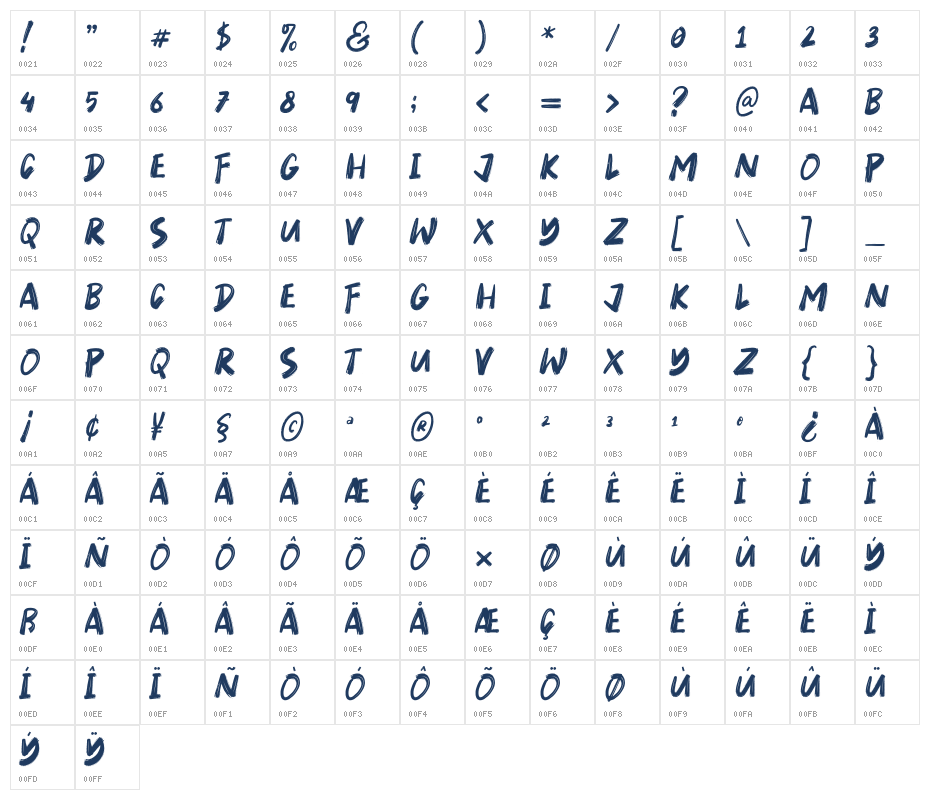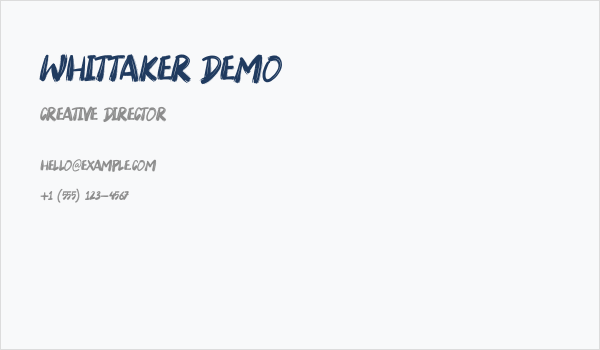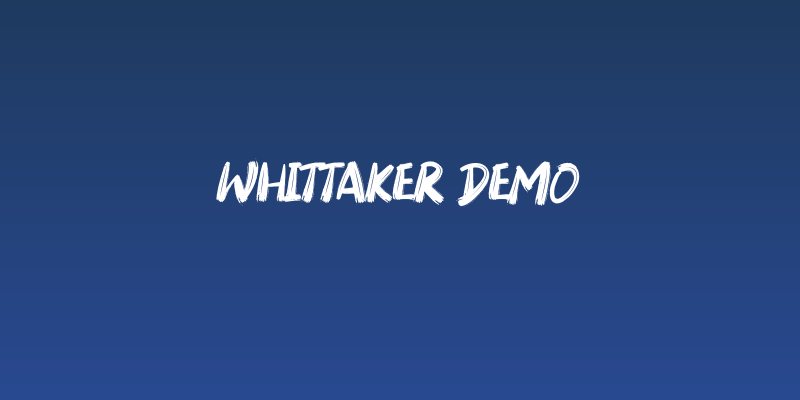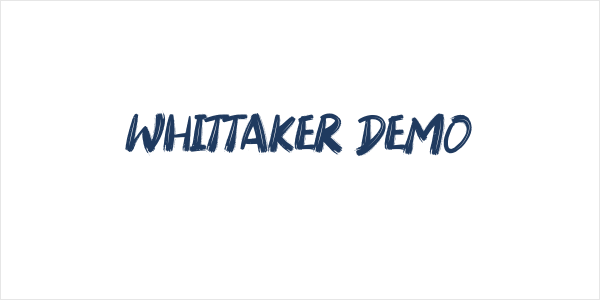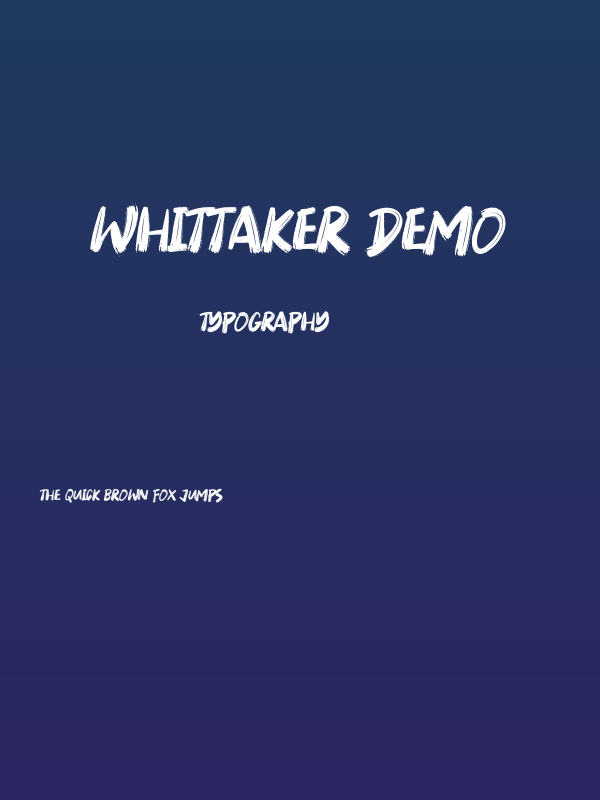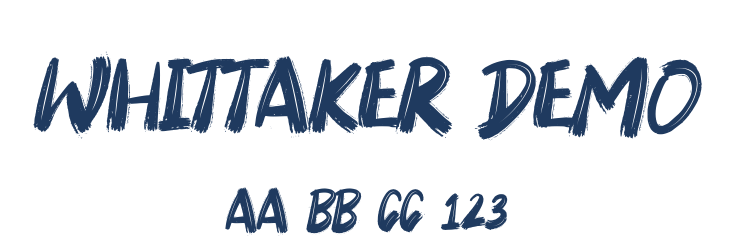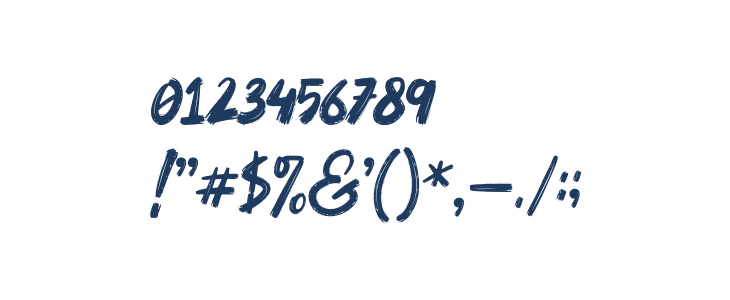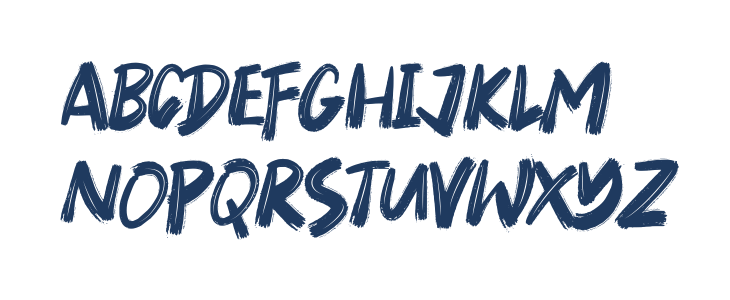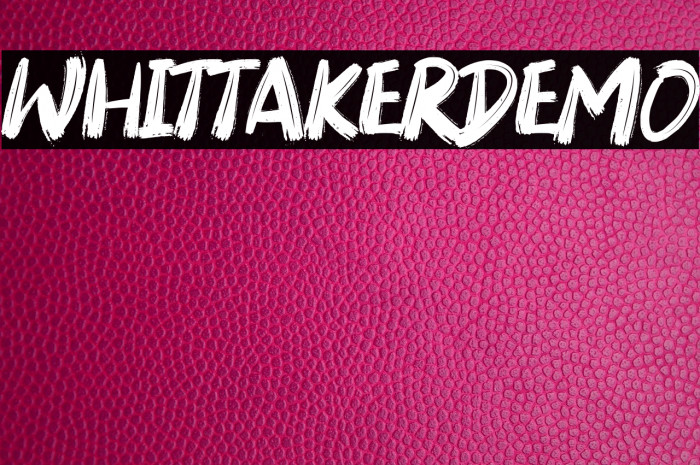
Whittaker Demo Font
Whittaker Demo Description
A bold, brushstroke-style handwritten font with a casual and energetic appearance.
Whittaker
| Overall Style | Casual, Artistic, Dynamic |
| Use Case | Headlines, Logos, Posters, Creative branding |